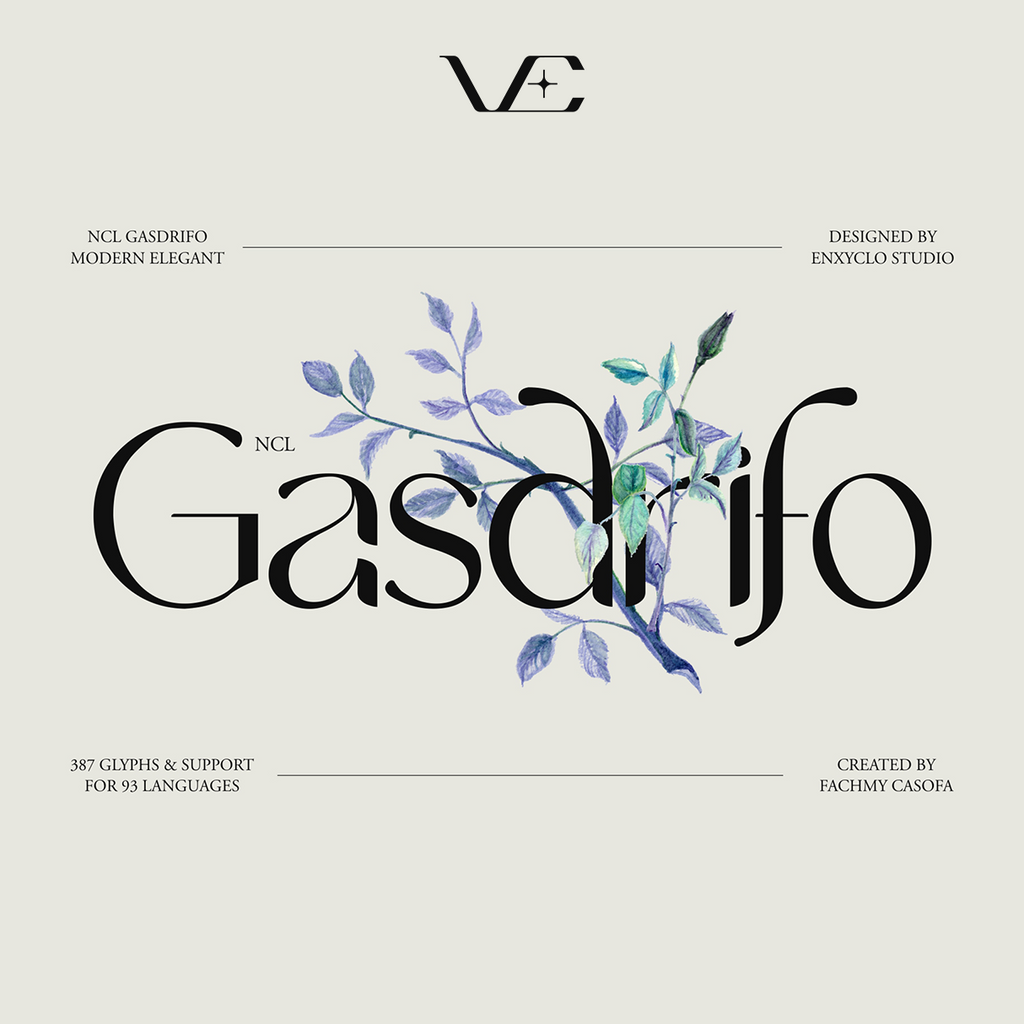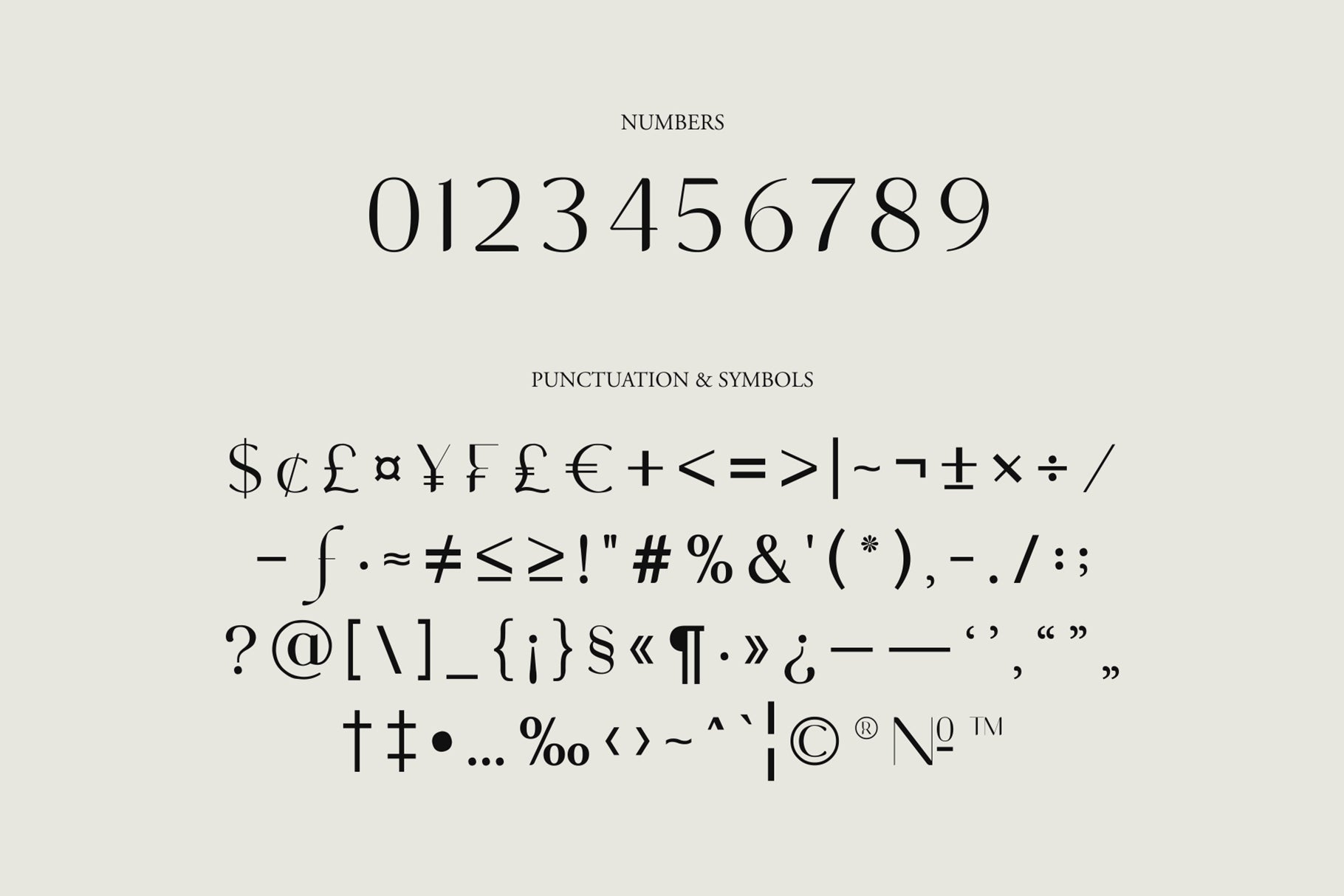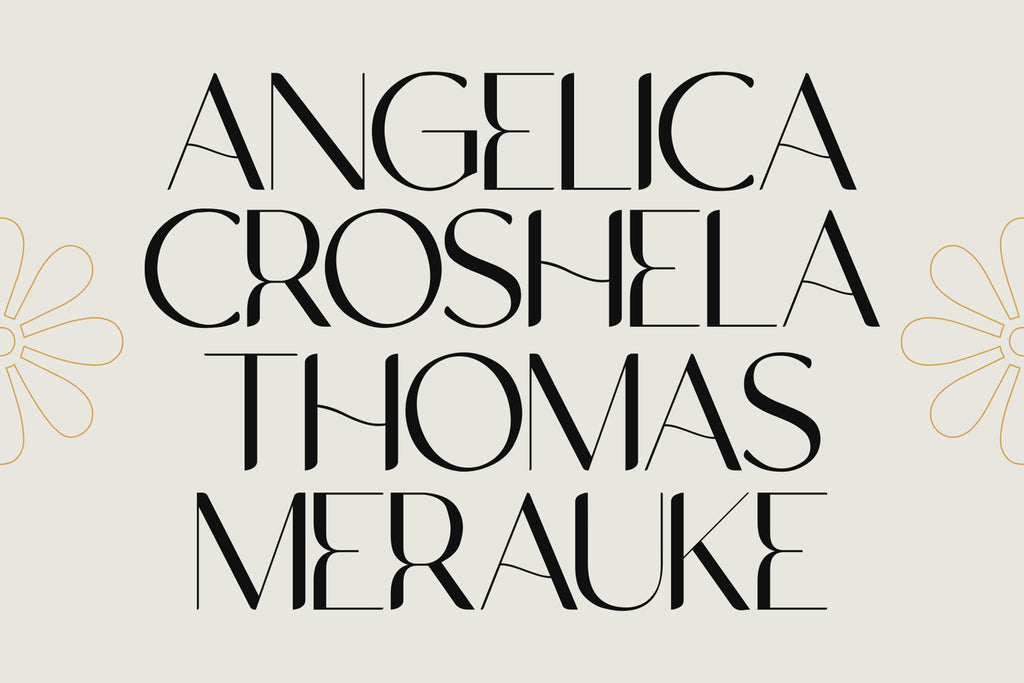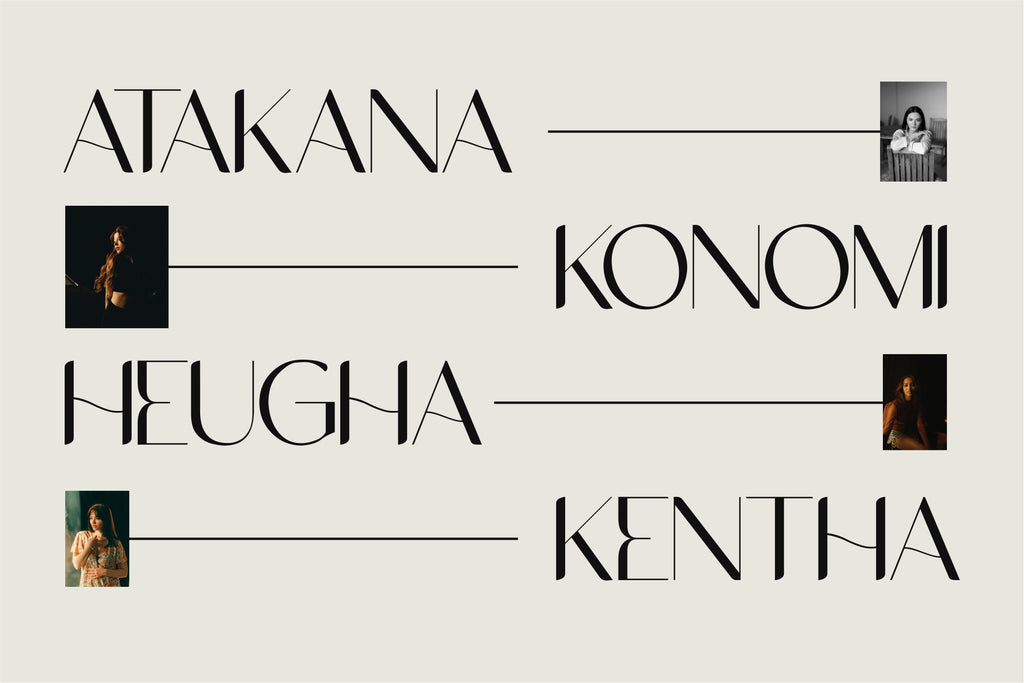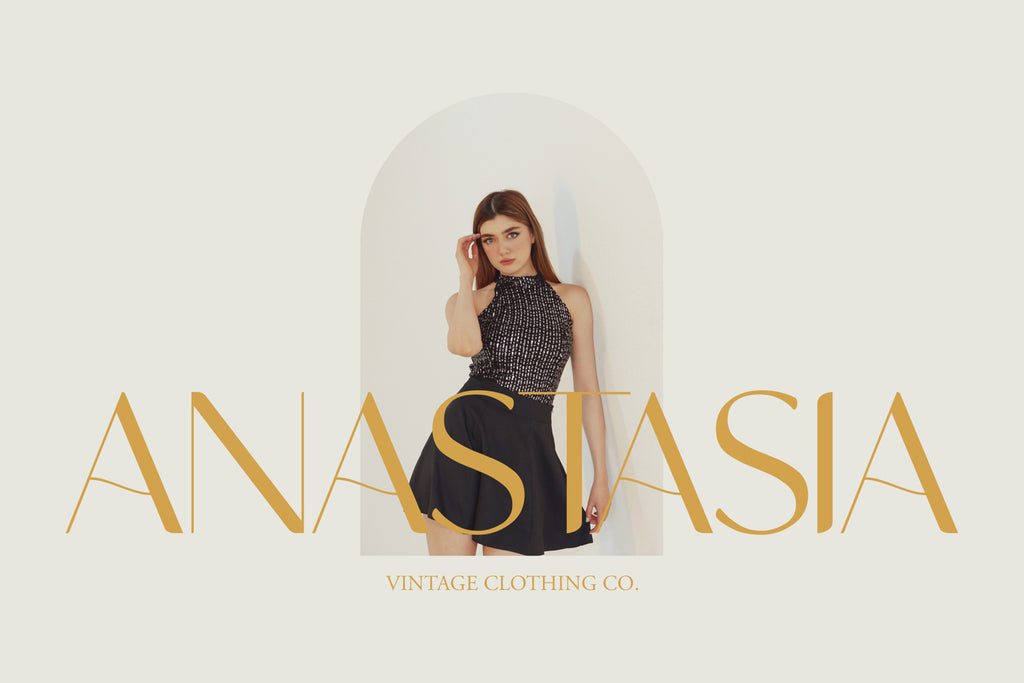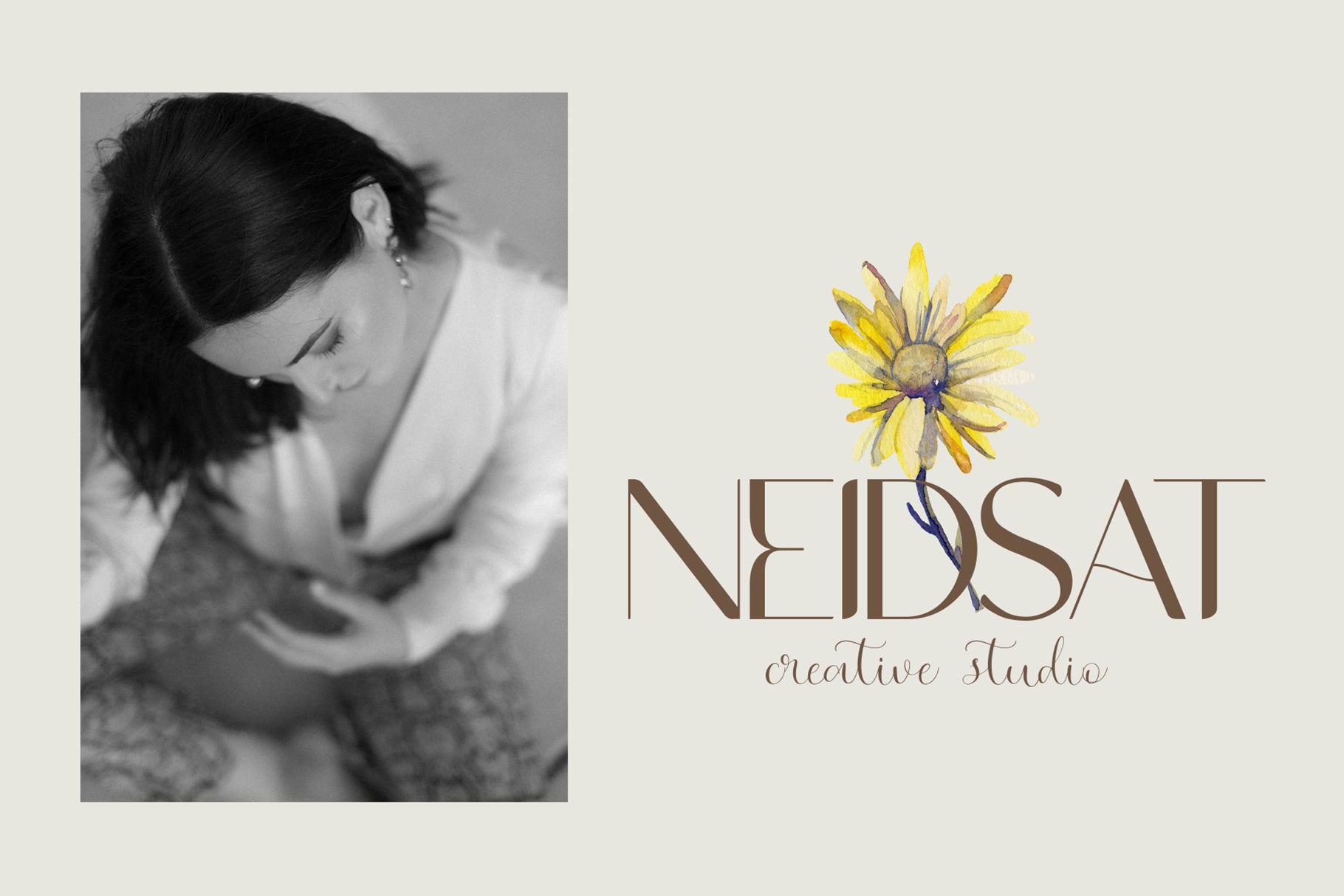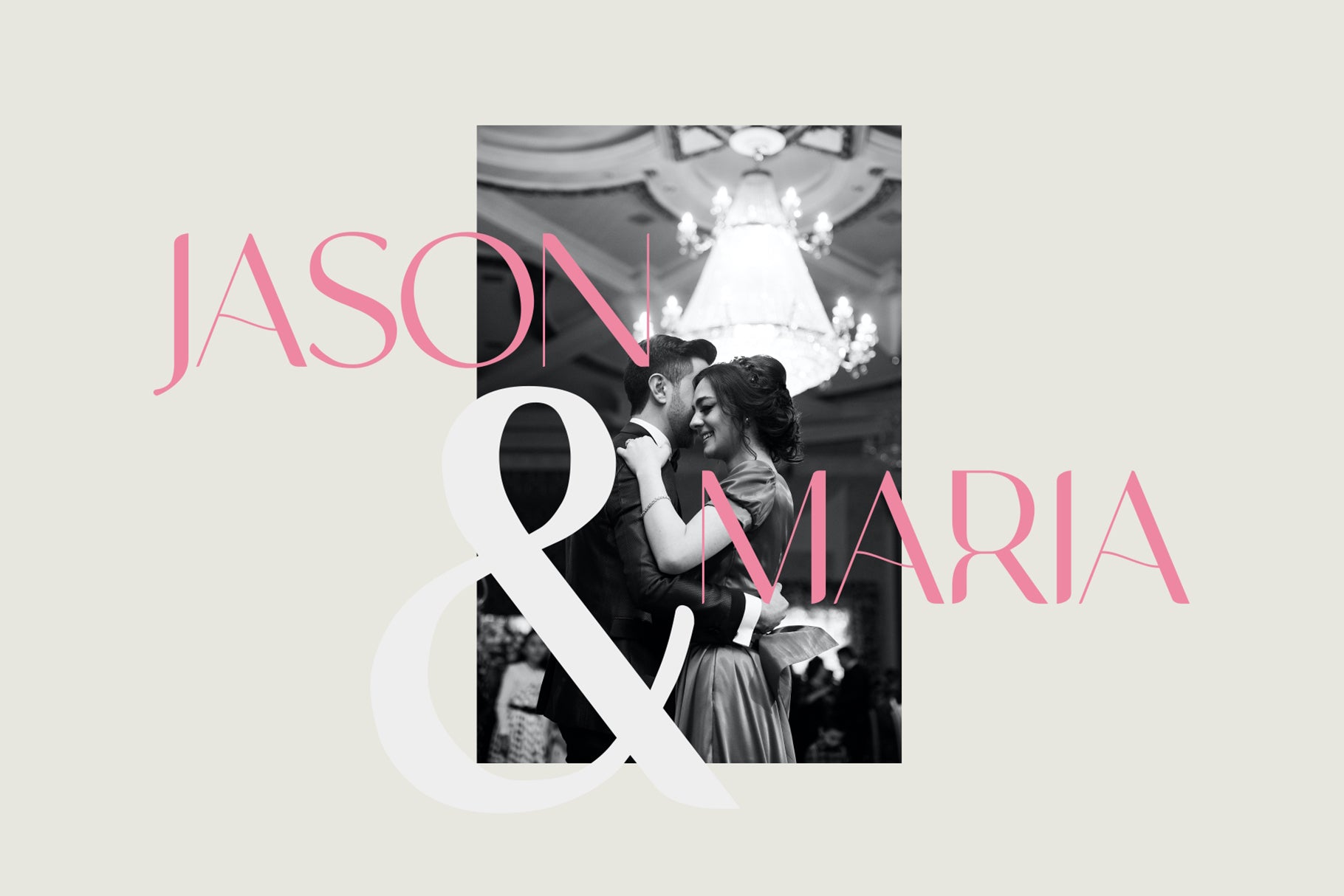
NCL GASDRIFO • Serif Typeface
NCL GASDRIFO is a modern elegant font. Masterfully designed to become a true favorite, this font has the potential to bring each of your creative ideas to the highest level! It was purposely crafted to be used in large point sizes, although it doesn’t lose its magic in small point sizes. It is perfect for wedding, headline, billboard, magazines, website, titles, poster, branding, and logos. No matter the topic, this font will be an incredible asset to your fonts’ library, as it has the potential to elevate any creation. With this beautiful font, absolutely you can make your project stand out from the rest.
FEATURES
• Contains 387 Glyphs
• Uppercase & Lowercase
• Numeral, Punctuation & Symbols
• Multilingual Support